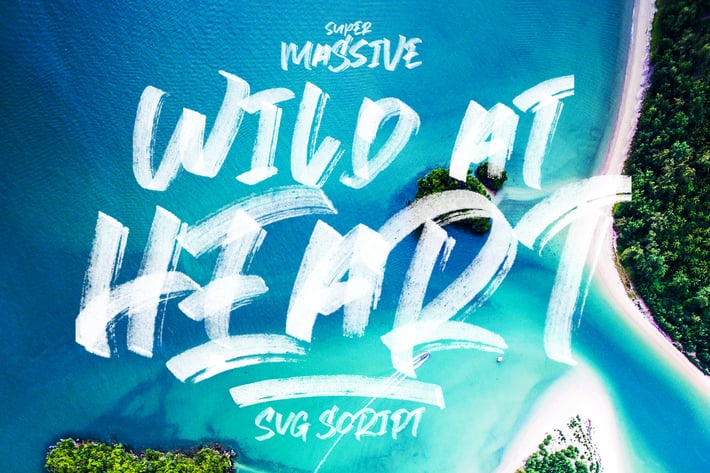
Massive SVG Font
Massive SVG Font made with a transparent line texture. Suitable for use in title design such as invitations, signboards, book titles, stationery designs, quotes, branding, logos, greeting cards, packaging designs, posters, and more.